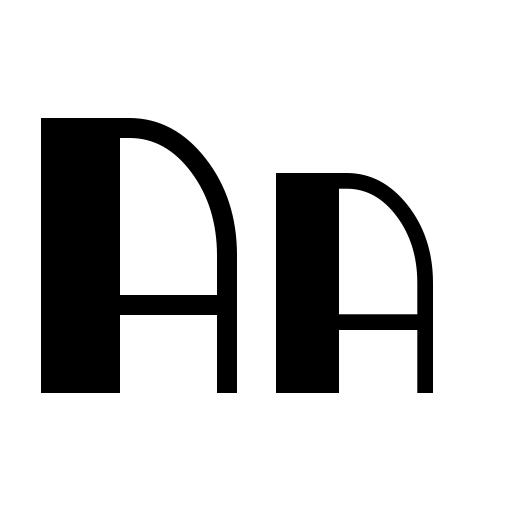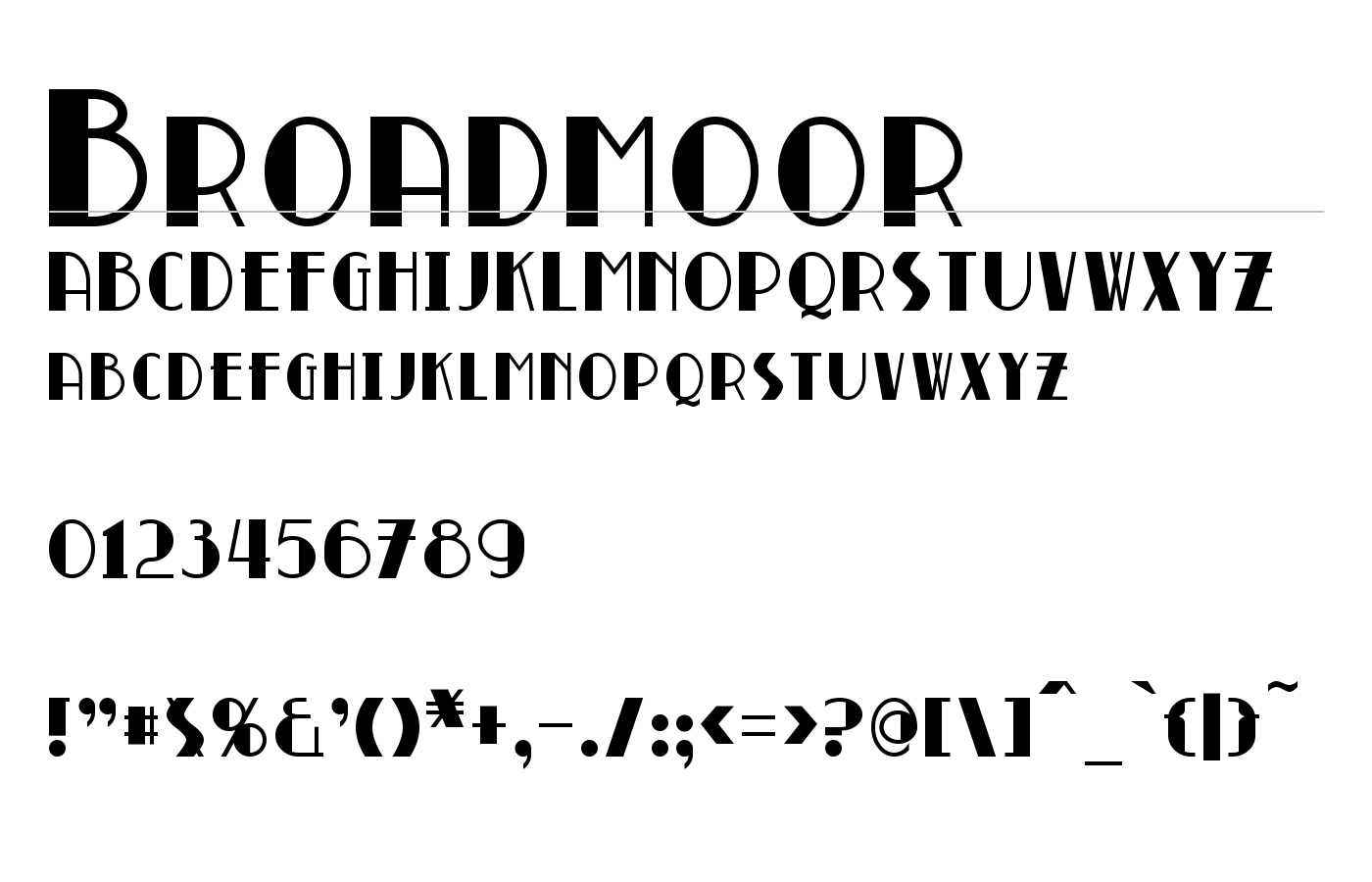
Broadmoor is a bold, geometric sans serif font with strong Art Deco influences, characterized by its sharp contrasts between thick and thin strokes and distinctive, stylized letterforms. Its tall, narrow proportions and playful yet elegant shapes make it perfect for vintage-inspired branding, headlines, and display uses where a dramatic, sophisticated look is desired. This font shines in fashion, luxury, and editorial designs that aim to capture a unique and memorable personality.
Broadmoor Font
About Broadmoor Font
| Font family | Broadmoor Font |
| Designer | Neale Davidson |